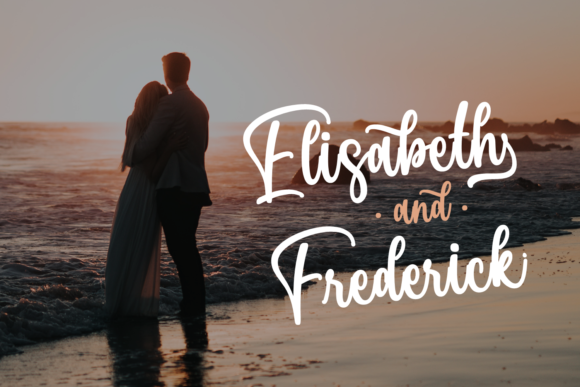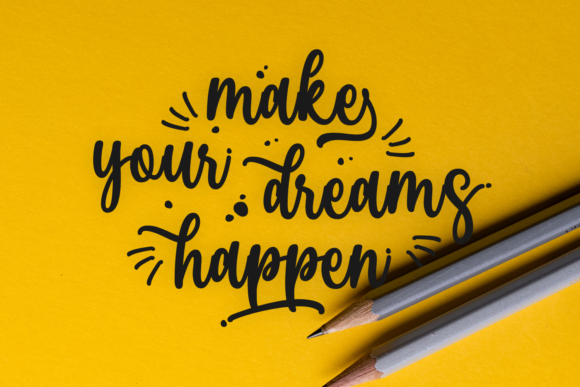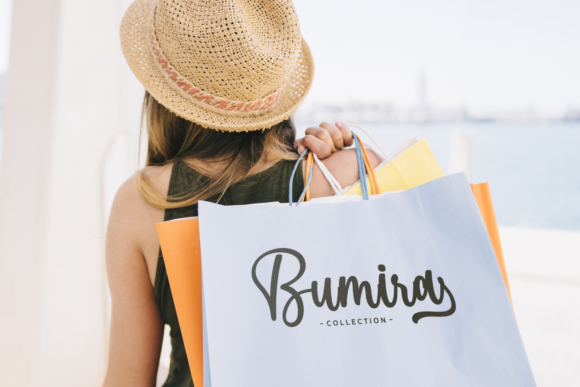
Discover the Fresh Mood Font: Elevate Your Designs with a Fun and Upbeat Script
I’ll never forget the time I was working on a branding project for a trendy new cafe. I had the logo concept nailed, but I just couldn’t find the right font to match the vibe. The client wanted something fresh, fun, and energetic, but not too over-the-top. I spent hours scouring font websites and trying out different combinations, but nothing seemed quite right. That’s when I stumbled upon the Fresh Mood font. It was like a breath of fresh air (pun intended)! The perfect blend of playfulness and sophistication, Fresh Mood instantly elevated my design and won over the client. If you’re a designer, crafter, or creative hobbyist looking for a font that packs a similar punch, you’re in the right place.
An Honest Review of Fresh Mood
- ✨ Upbeat and energetic vibe: Fresh Mood has a way of injecting fun and personality into any design.
- ✅ Highly versatile: Whether you’re working on a logo, social media graphics, or a full branding suite, Fresh Mood adapts beautifully.
- 💫 Easy to read: Despite its script nature, Fresh Mood remains surprisingly legible, even at smaller sizes.
- 🎨 Great for creative projects: If you’re working on a design that needs a bit of whimsy, Fresh Mood is an excellent choice.
While Fresh Mood is an excellent font, it’s not without its quirks. Here are a few things to keep in mind:
- ⚠️ Limited use in formal contexts: Fresh Mood’s playful nature makes it less suitable for very formal or corporate designs.
- 🤔 Some letter combinations may require adjustment: As with any script font, you may need to tweak certain letter combinations for optimal spacing and readability.
- Experiment with OpenType features like ligatures and stylistic alternates to add more flair to your text.
- Explore the glyphs panel to access additional characters, such as swashes and alternates.
The Backstory Behind Fresh Mood
While the origins of Fresh Mood are shrouded in mystery, it’s clear that the designer had a passion for creating a font that would bring joy and energy to designs. Perhaps the designer, fueled by a love of coffee and good vibes, set out to craft a font that would make people smile. Whatever the inspiration, Fresh Mood has undoubtedly become a favorite among designers and crafters.
| Font Name | Fresh Mood Font |
| Author | Dani (7NTypes) |
Q: What makes Fresh Mood so special?
A: Fresh Mood’s unique blend of playfulness and sophistication makes it an excellent choice for a wide range of design projects.
Q: Is Fresh Mood difficult to read?
A: Despite its script nature, Fresh Mood remains surprisingly legible, even at smaller sizes.